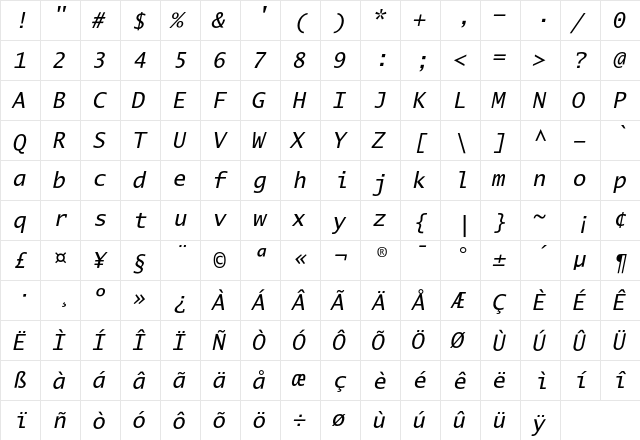
LucidaMonoEF RomanItalic
Design Context for LucidaMonoEF Typeface
LucidaMonoEF uses fixed-width spacing throughout, giving it the structured, systematic character associated with coding environments and technical documentation. The slanted form adds forward momentum and visual energy.
Pro Tip: Pair LucidaMonoEF with a proportional sans for UI contexts where code-style labels and regular body copy need to coexist.